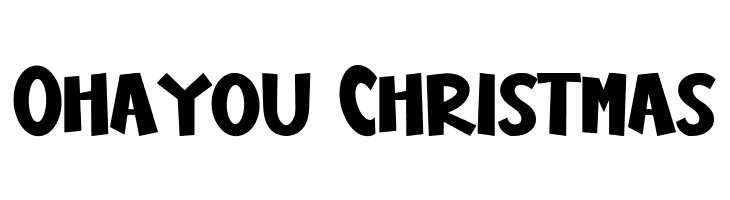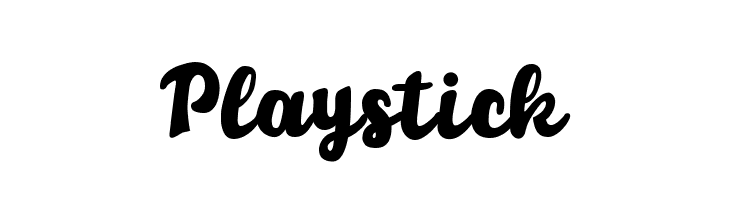
A playful and energetic script font with bold, flowing strokes and a handwritten quality.
A modern, geometric font with tall, narrow letters and sharp angles.
A bold, playful script font with a handwritten feel.
A bold, playful font with a cartoon-like, quirky style.
A bold, angular font with a modern, edgy style.
A playful, bold font with a whimsical, hand-drawn style.
A clean, geometric font with a modern aesthetic.
A playful, hand-drawn outline font with an irregular and artistic style.
A bold, rugged, and hand-drawn font with a playful, cartoonish style.
A bold, italicized font with a reggae-inspired, dynamic style.